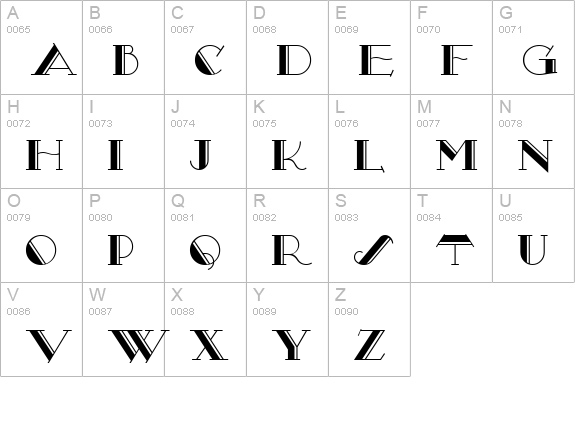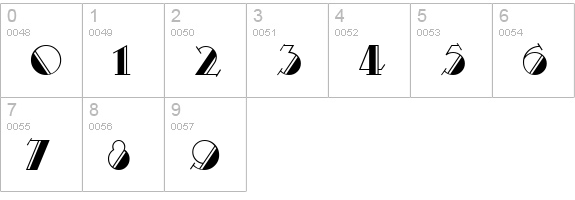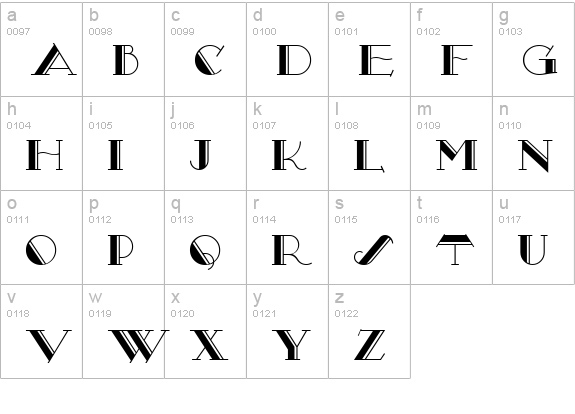
Introducing Secret Agent NF, a sleek and sophisticated font that embodies the essence of mystery, intrigue, and danger. With its bold and sharp letterforms, this font is perfect for projects that require a touch of secrecy and suspense. Secret Agent NF exudes an air of confidence and professionalism, making it an ideal choice for branding, logos, movie titles, book covers, and more. Its clean lines and stylish curves create a sense of elegance and sophistication, while its slightly condensed proportions ensure maximum impact and readability. What sets Secret Agent NF apart is its versatility and adaptability. Whether you're working on a top-secret mission briefing, a thrilling spy novel, or a covert event invitation, this font effortlessly captures the essence of the clandestine world. And the best part? Secret Agent NF is freely available to download at FontsMarket.com. This means that you can add a touch of espionage to your designs without breaking the bank. So go ahead and unleash your inner secret agent, and let Secret Agent NF take your projects to new and thrilling heights. Don't miss out on this opportunity to enhance your designs with a font that combines style, professionalism, and a hint of mystery. Download Secret Agent NF today and embark on a journey into the world of espionage and intrigue.